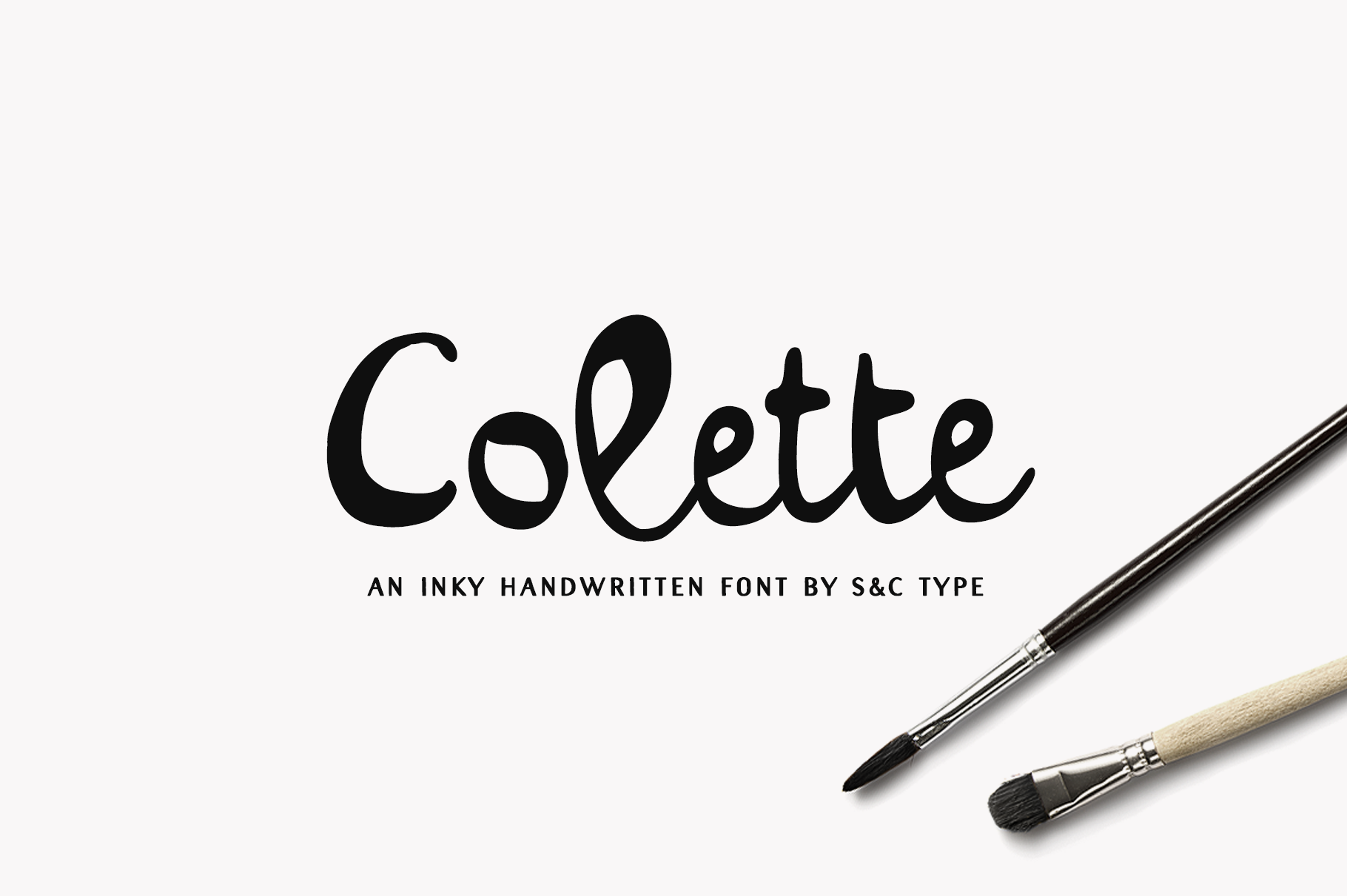
Colette Font Collection
Colette is an inky handwritten script font designed by Fanny Coulez and Julien Saurin in Paris. This finely balanced font was designed to be easy to read and easy to use.
Colette includes alternates and OpenType ligatures such as double letters or alternates glyphs that you can use to improve your designs and make them look natural and friendly.
We also designed a Filled version (you can mix Colette and Colette Filled to give you more design options) and an Inside version (To do so, you can simply superimpose the layers with a compatible software like Photoshop, the weight above and the inside below, then choose a color for each).
Colette
Colette Filled
Colette Inside